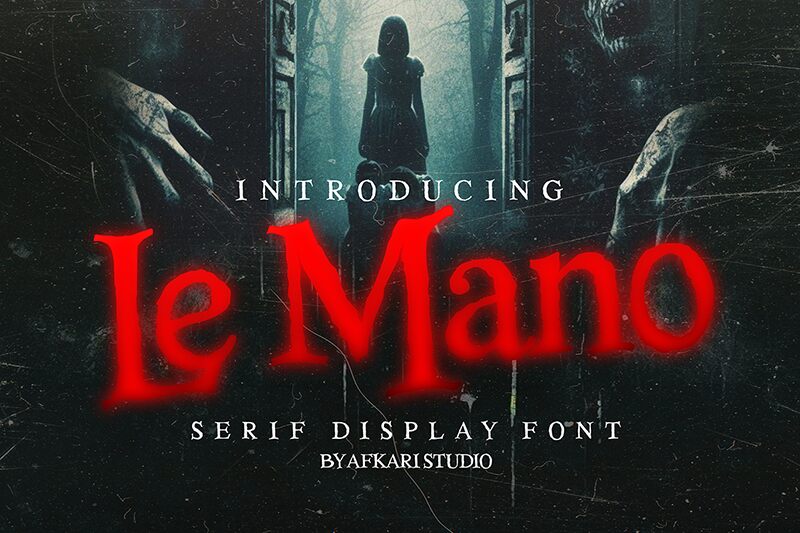
Le Mano Regular
Le Mano, envisioned by Musthafa Kamal Emje of Afkari Studio, breaks the mold with its eroded, serif display character. This font is a masterpiece of design that marries the grandeur of vintage typography with the edge of contemporary style. Its unique eroded effect gives it a textured personality, perfect for projects that aim to stand out with an artistic and historical touch.
The meticulous craftsmanship behind Le Mano is evident in every character. The font's pronounced serifs and robust structure convey authority and sophistication, making it an ideal choice for branding, editorial design, or any creative endeavor seeking to make a bold statement. With its balance between decorative complexity and functional simplicity, Le Mano promises to infuse your designs with a stately yet approachable quality that resonates across mediums and contexts.